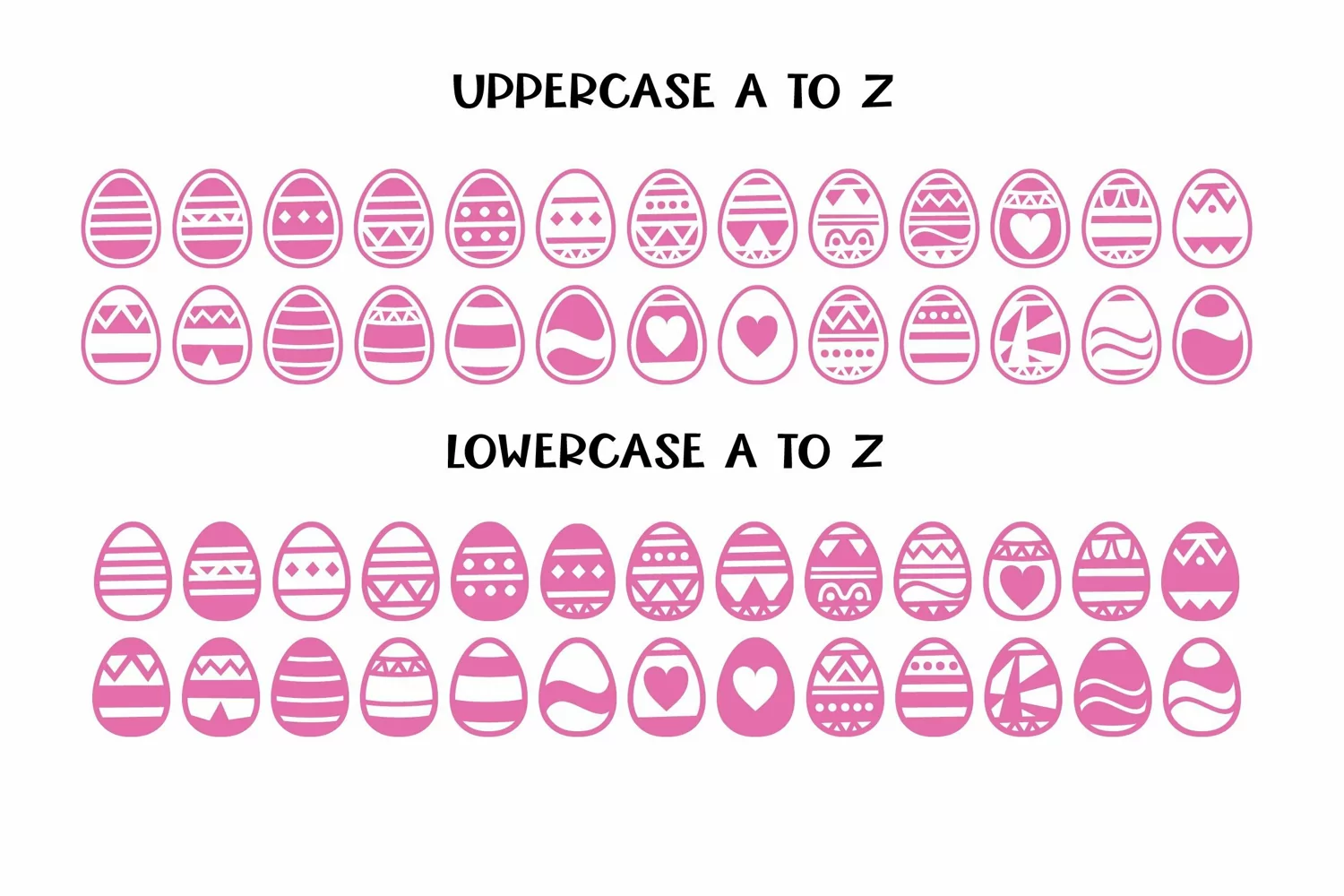
Web Font Easter Egg Dingbats - smooth cuttable easter egg do
Easter Egg Dingbats include 52 cute egg dingbats perfect for all Easter crafts and design!
• 26 easter eggs as A-Z
• 26 easter eggs as a-z